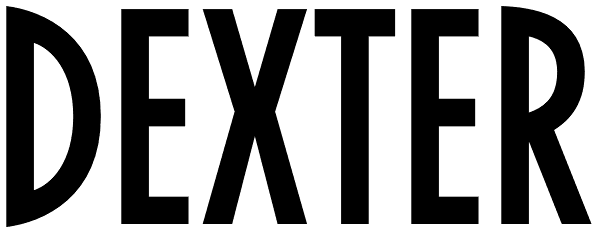
DEXTER
Dexter is an original new typeface creation by Alex Kaczun. It is a warmer, more sophisticated grotesque that is both fun and interesting. Its tight letter spacing and narrow proportions make the typeface particularly well suited for display sizes...
DEXTER
DEXTER SMALL CAPS